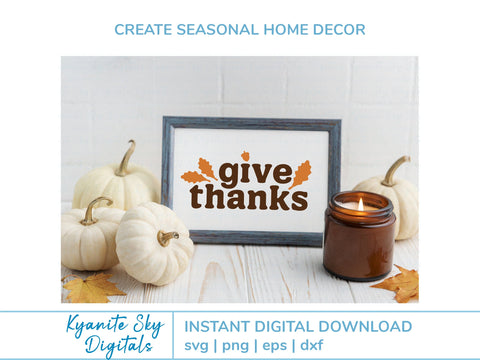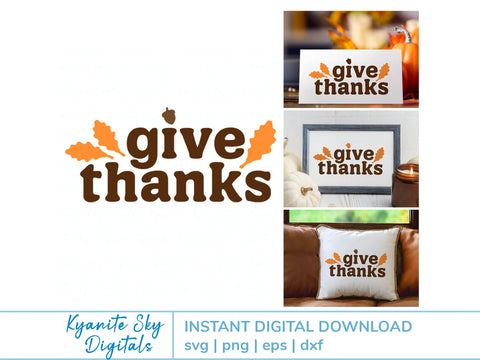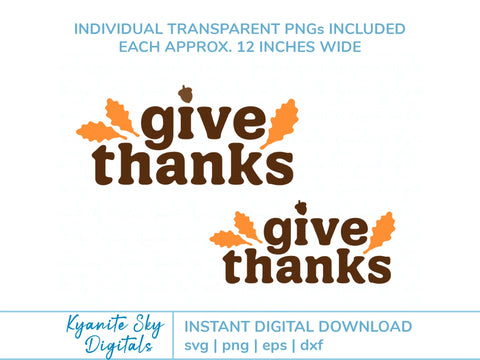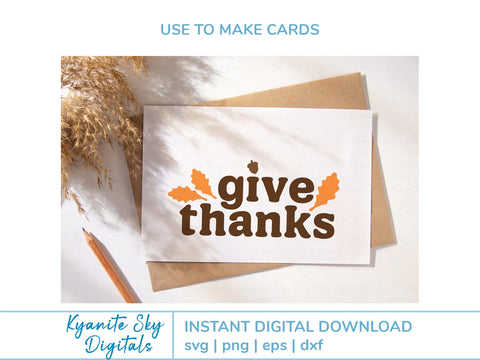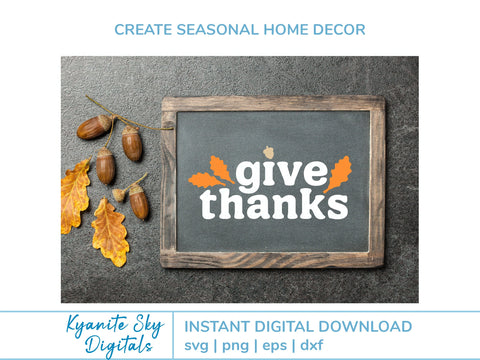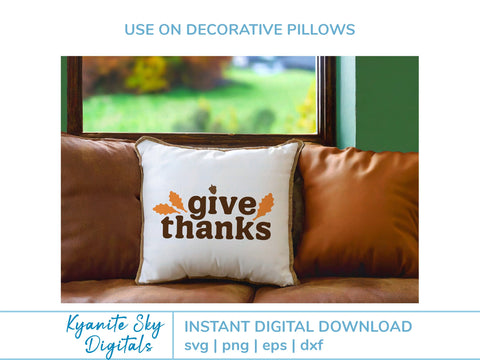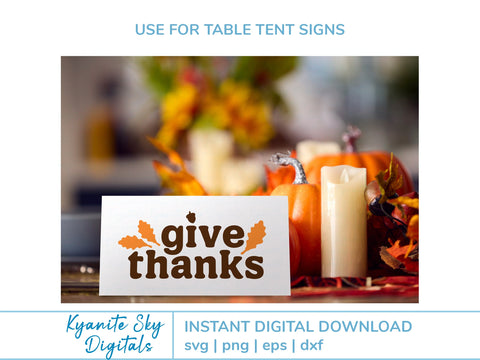
Give Thanks SVG fall quote with oak leaves and acorn
"Give Thanks" phrase, accented with fall oak leaves and an acorn for the dot on the letter "i". Great for seasonal home decor, Thank You cards, framed wall art, Thanksgiving signs, fall pillows, custom gift bag or tote, shirts, and more.